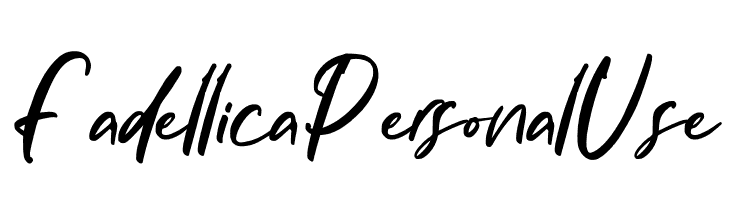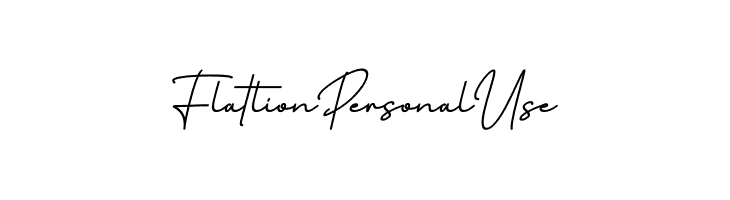
A dynamic, expressive handwritten font with fluid, energetic strokes.
A bold, dynamic script font with interconnected characters and a modern vintage charm.
A bold, hand-drawn font with a rough, textured appearance and playful, informal style.
A playful, handwritten font with tall, narrow letters and a casual elegance.
A bold, flowing script font with a modern calligraphic style.
A bold, flowing script font with a modern, elegant style.
A bold, rugged font with a cracked stone appearance, ideal for dramatic designs.
A bold, high-contrast brush script font with an energetic and dynamic style.
A bold, hand-drawn style font with energetic and playful characteristics.
A bold, textured brushstroke font with a dynamic and artistic style.